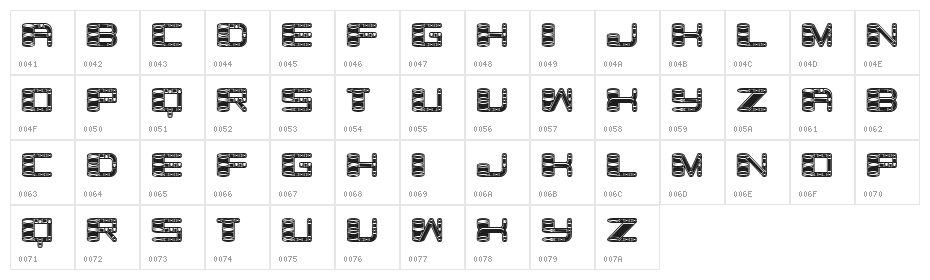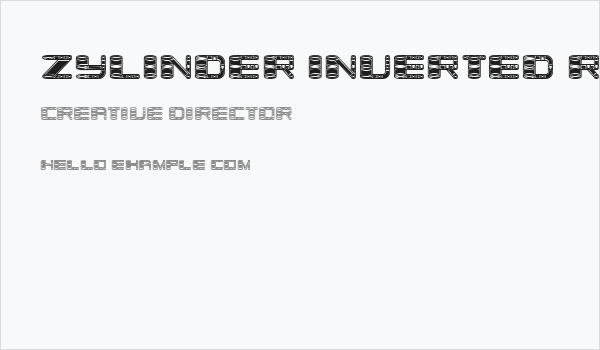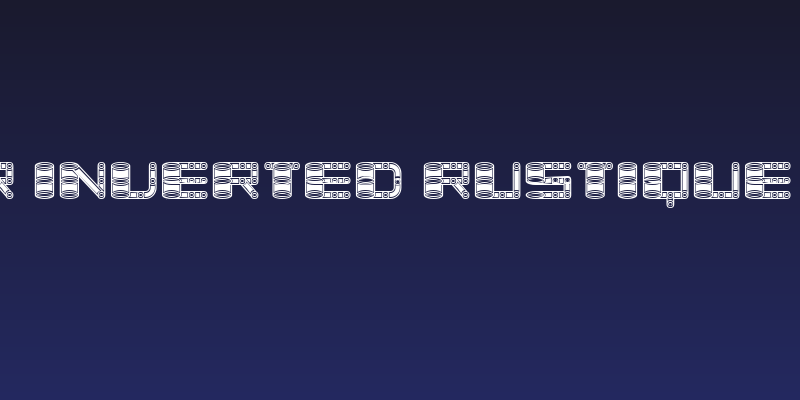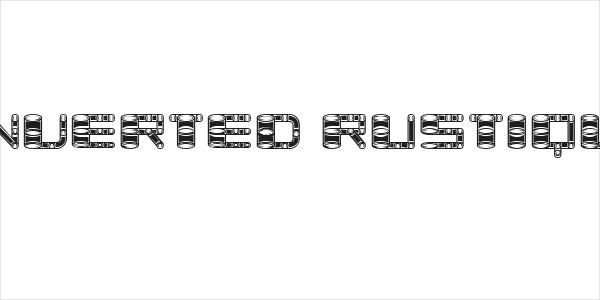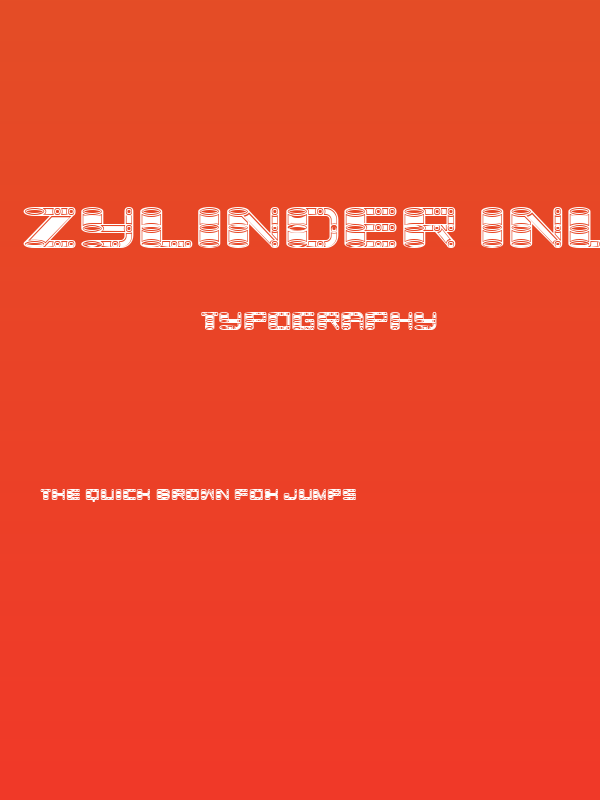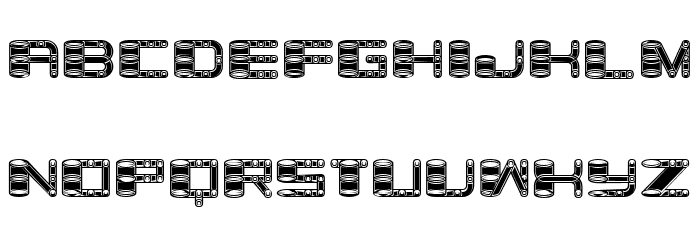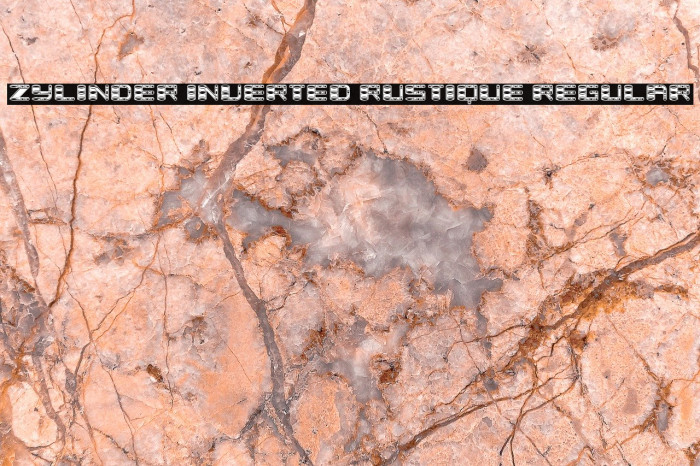
Zylinder Inverted Rustique Regular Font
Zylinder Inverted Rustique Regular Description
This font features a unique and intricate design, characterized by its decorative and detailed patterns within each letterform. The characters are bold and eye-catching, with a distinct industrial and mechanical aesthetic. The use of lines and shapes within the letters creates a sense of depth and complexity, making it ideal for projects that require a standout and artistic typeface. The font maintains a consistent structure across both uppercase and lowercase letters, ensuring readability while still offering a visually engaging experience.
| Proposed Projects | Ideal for posters, branding, album covers, and any design requiring a bold, artistic touch. |